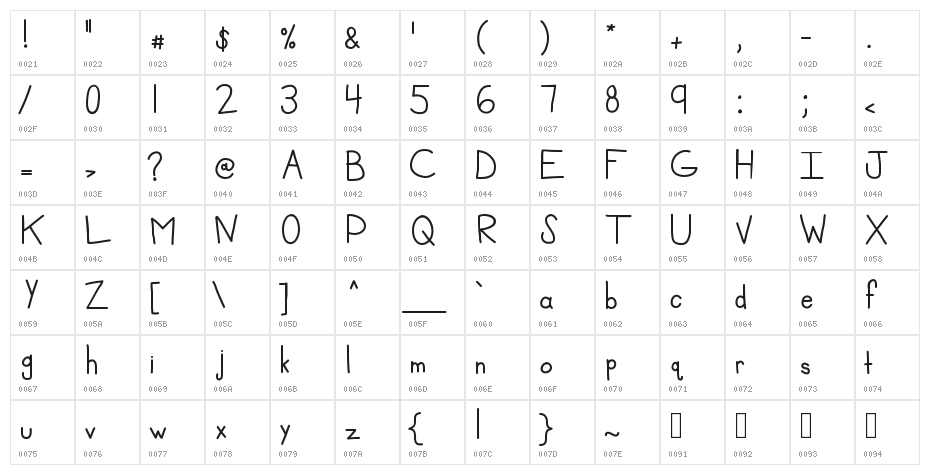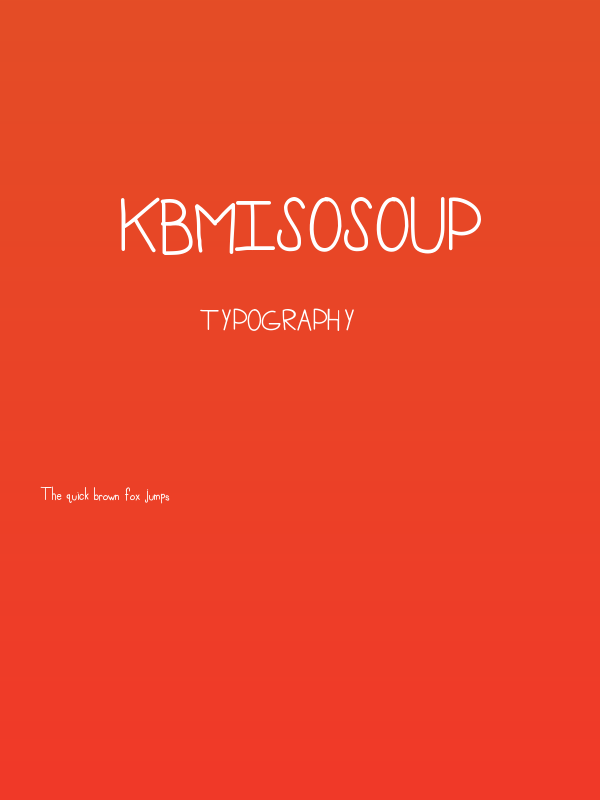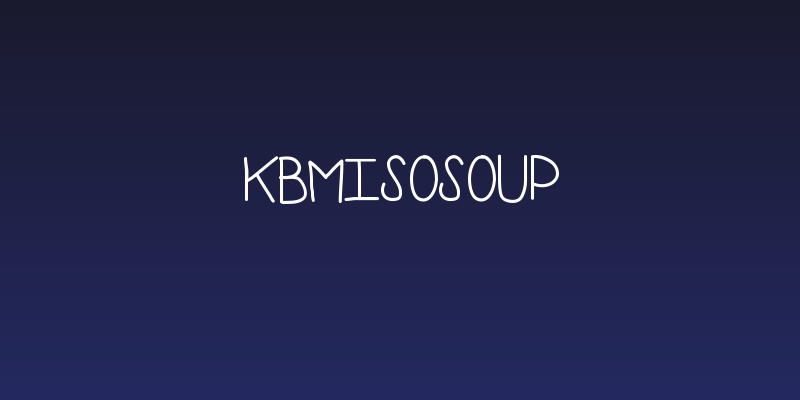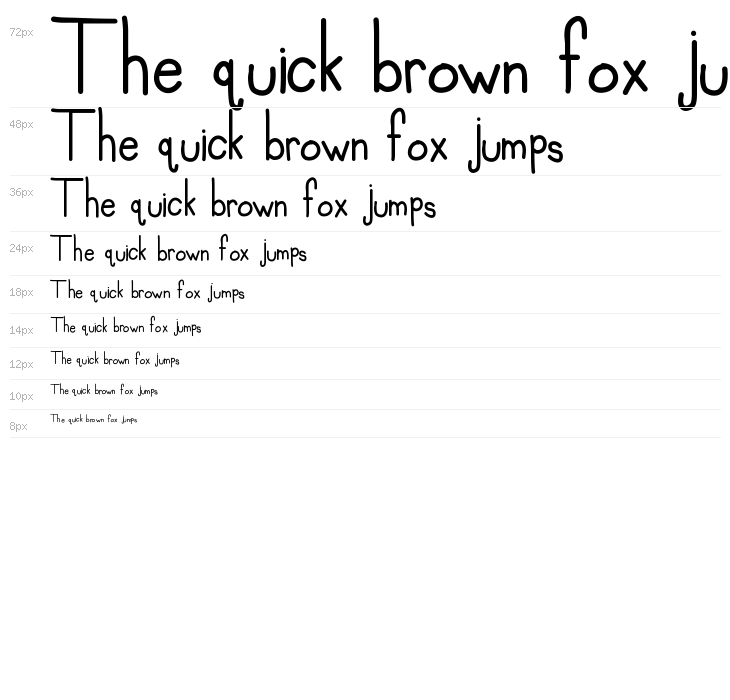
KBMisoSoup Font
KBMisoSoup Description
This font exhibits a playful and informal handwritten style, characterized by its irregular strokes and casual appearance. The letters are slightly uneven, giving it a whimsical and approachable feel. The uppercase letters are tall and narrow, while the lowercase letters maintain a consistent flow with rounded edges. The numerals are bold and slightly larger, ensuring readability. Special characters are creatively designed, adding to the font's unique personality. This font is well-suited for projects that require a personal touch or a fun, lighthearted vibe.
| Proposed Projects | Ideal for children's books, greeting cards, casual invitations, and playful branding. |